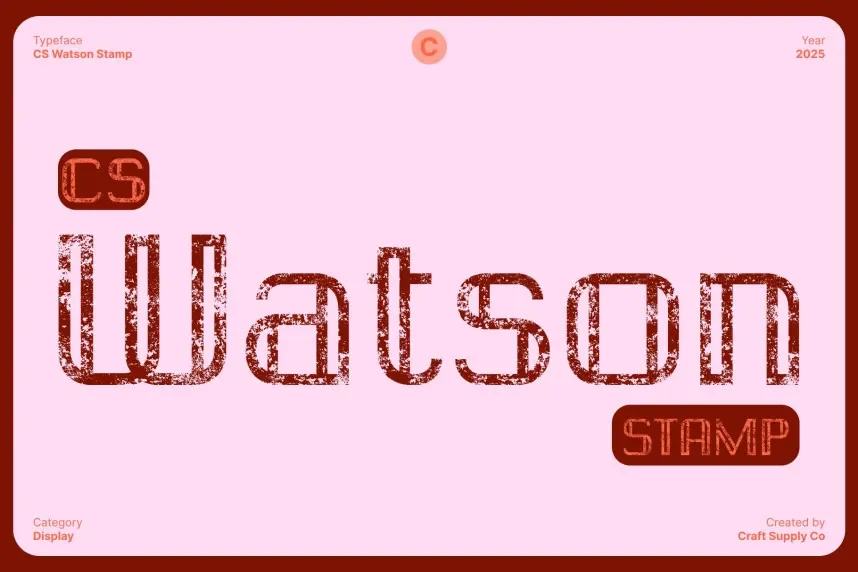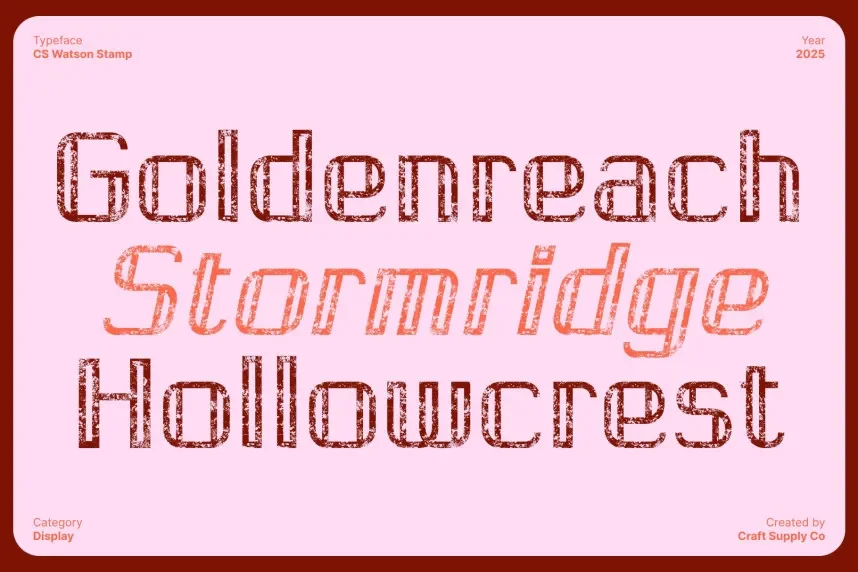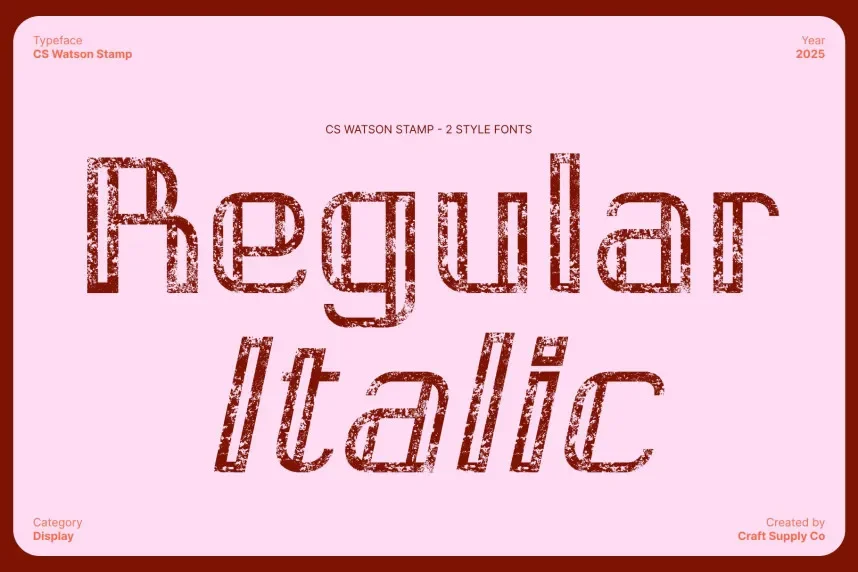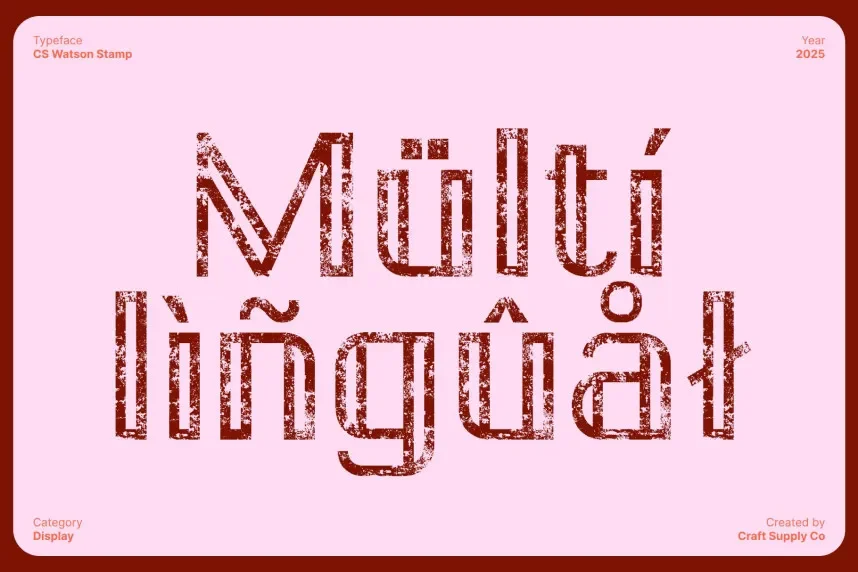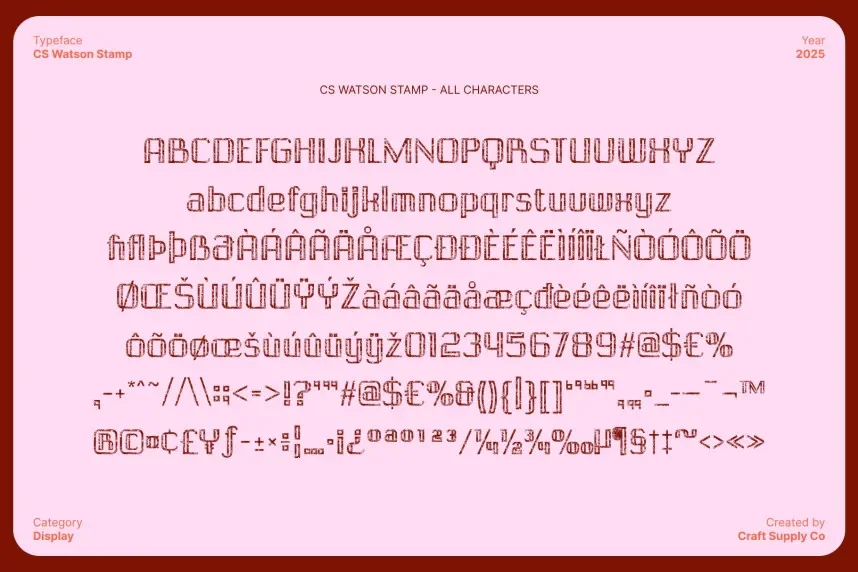
CS Watson Stamp Font is a display typeface created to solve clarity issues in textured branding and print design. Designers often need stamped lettering that stays readable on packaging, posters, and logos while keeping a rough, authentic look across print and digital formats.
This font belongs to the stamp display font category. It features bold letterforms, uneven edges, and ink-style texture that mimics traditional rubber stamps. Stroke weight remains consistent, which helps maintain legibility even with distressed details. The characters use simple shapes with limited contrast, making short text easy to scan.